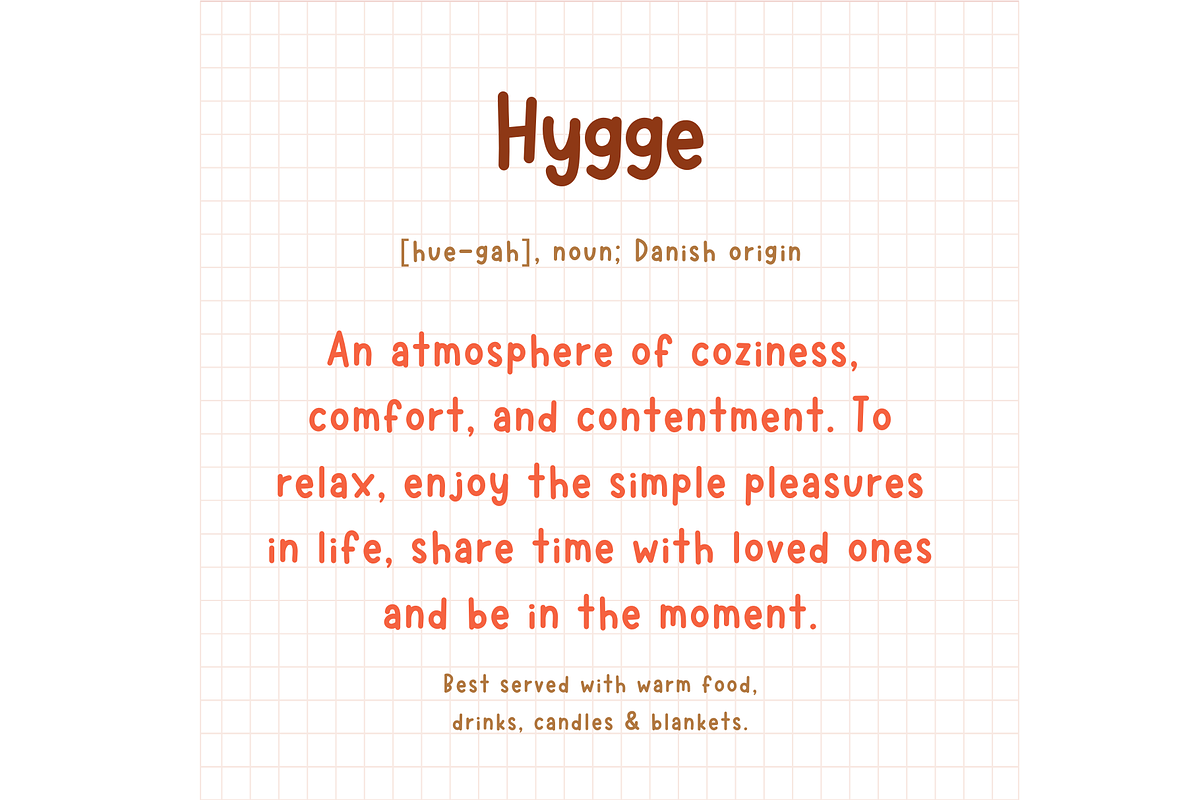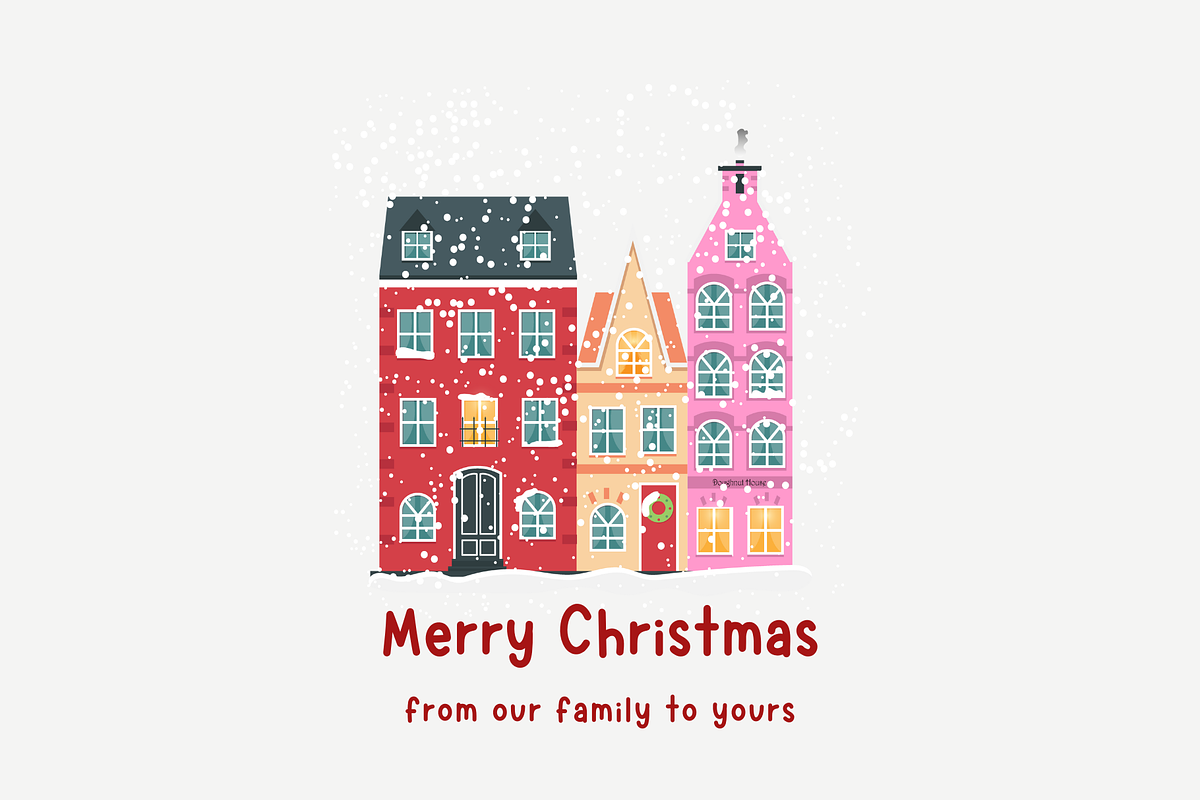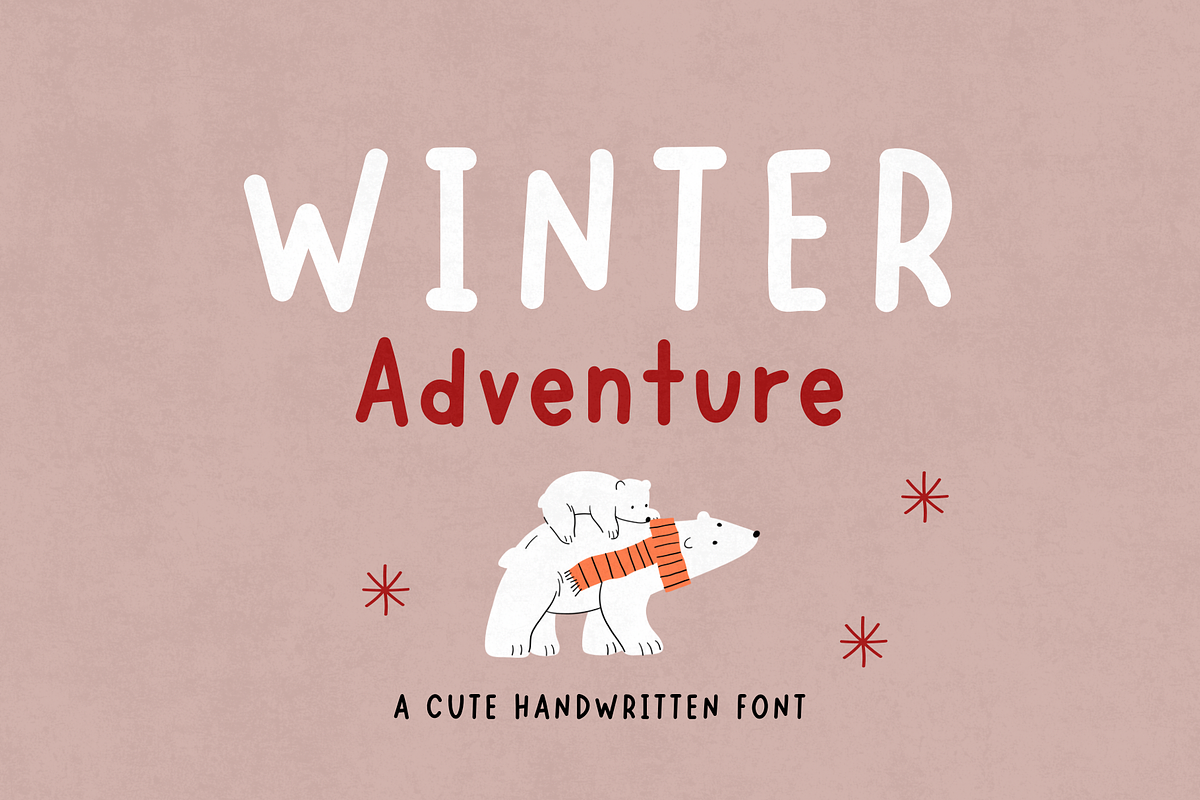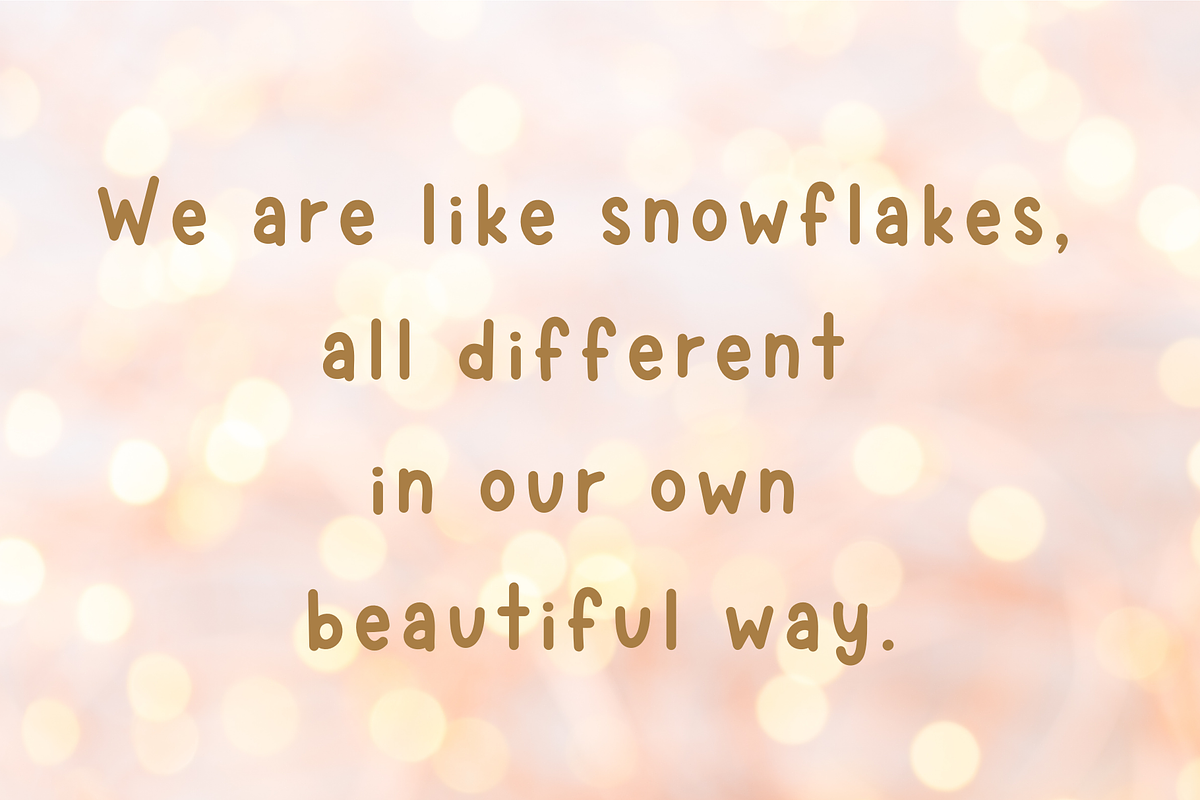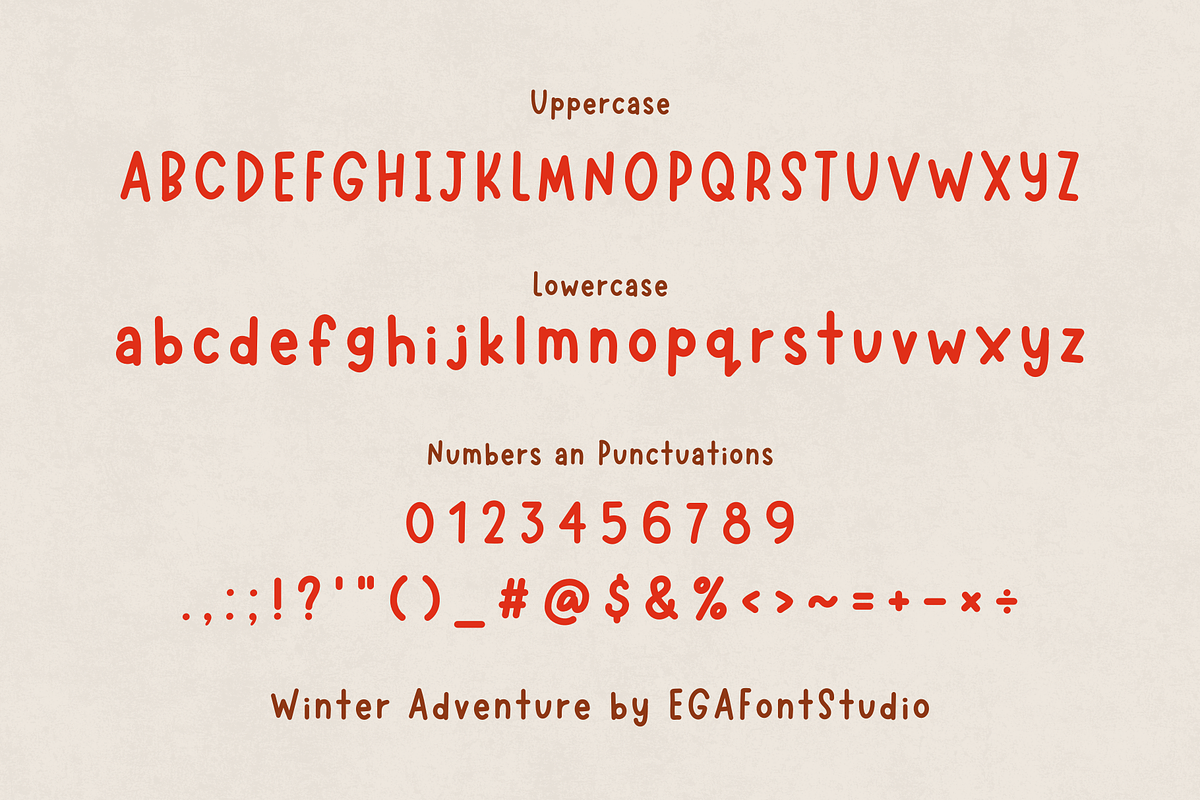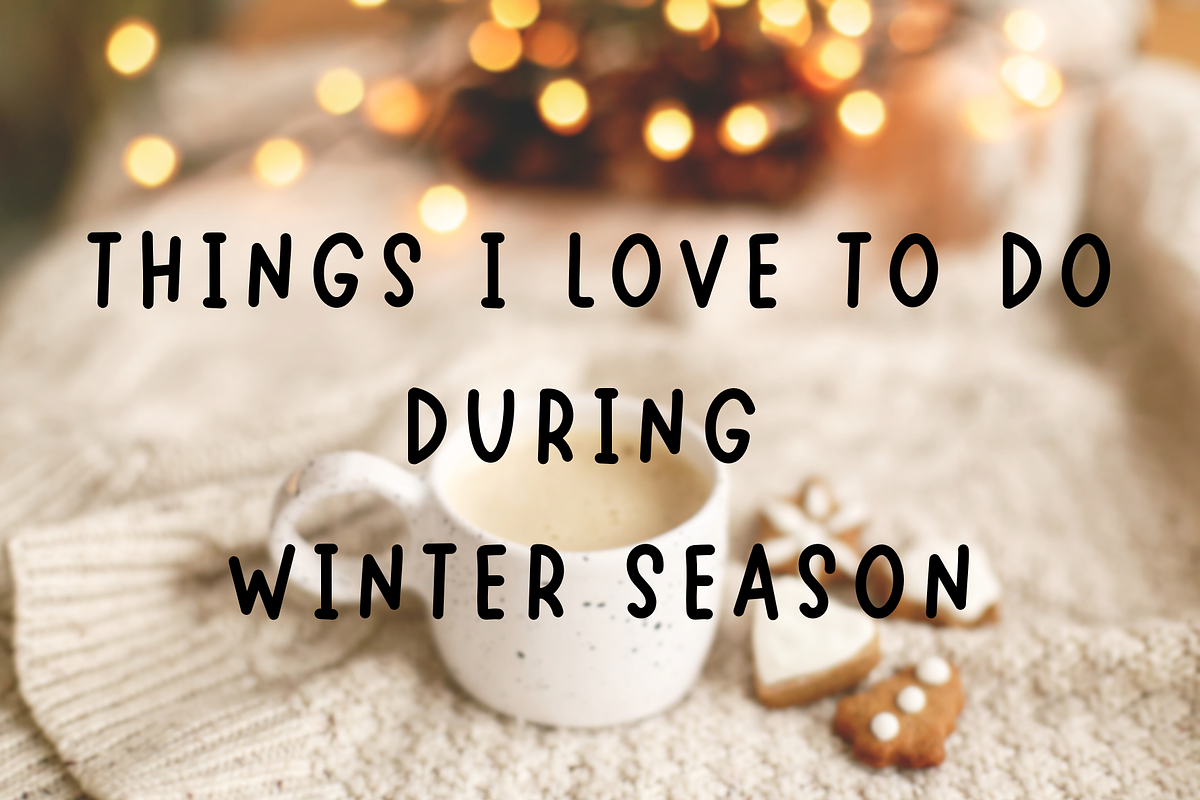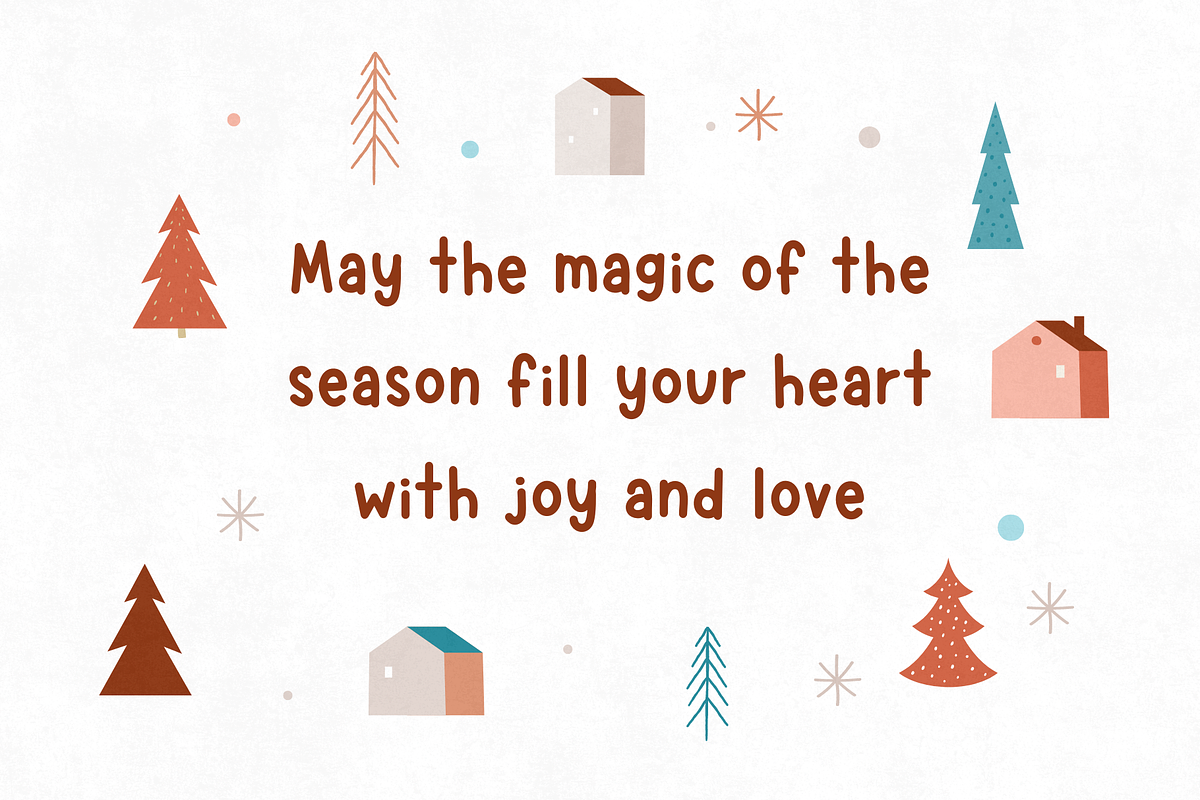
Winter Adventure | Handwritten Font
Explore the whimsical charm of 'Winter Adventure' - a delightful handwritten font that captures the magic of the season! Perfect for crafting cozy holiday cards, creating festive invitations, or adding a playful touch to your DIY projects. With its warm, hand-drawn feel and cheerful curls, 'Winter Adventure' brings a joyful spirit to every design. Embrace the enchantment of winter with this delightful font that's sure to spark creativity and spread holiday cheer!
Uppercase Characters
Lowercase Characters
Numbers and Punctuations